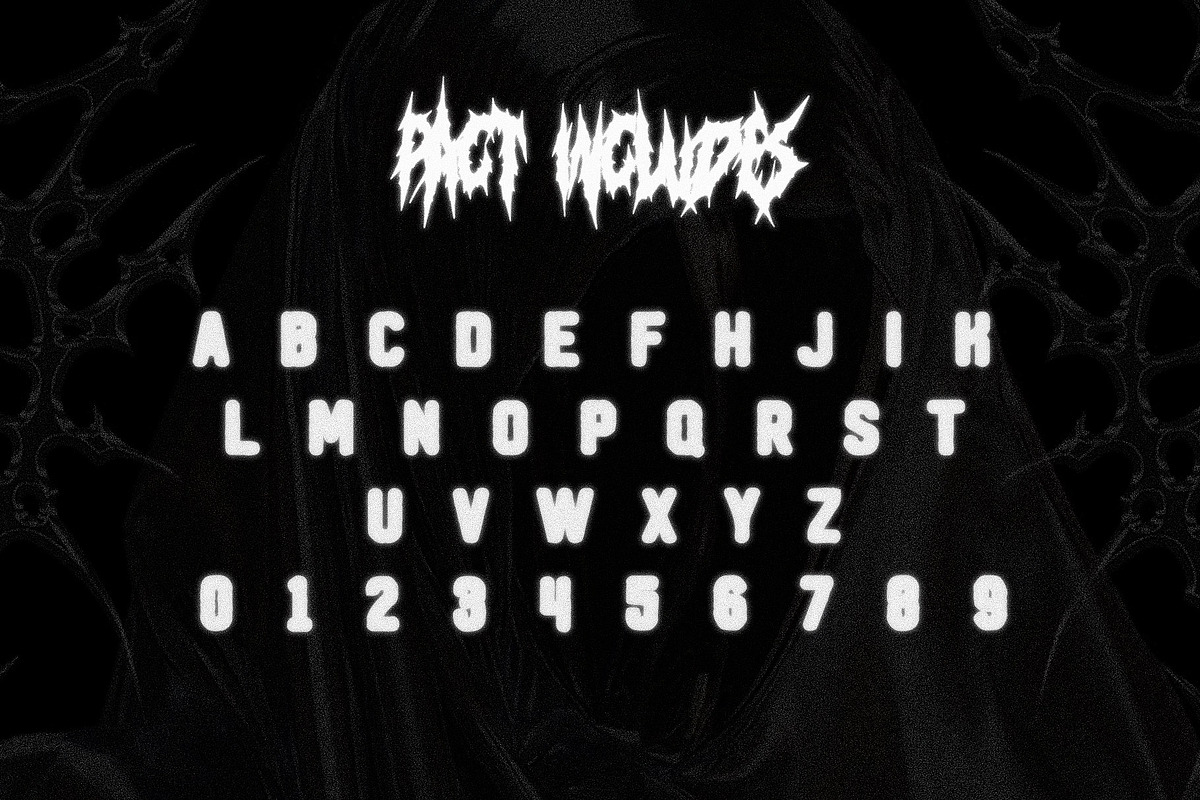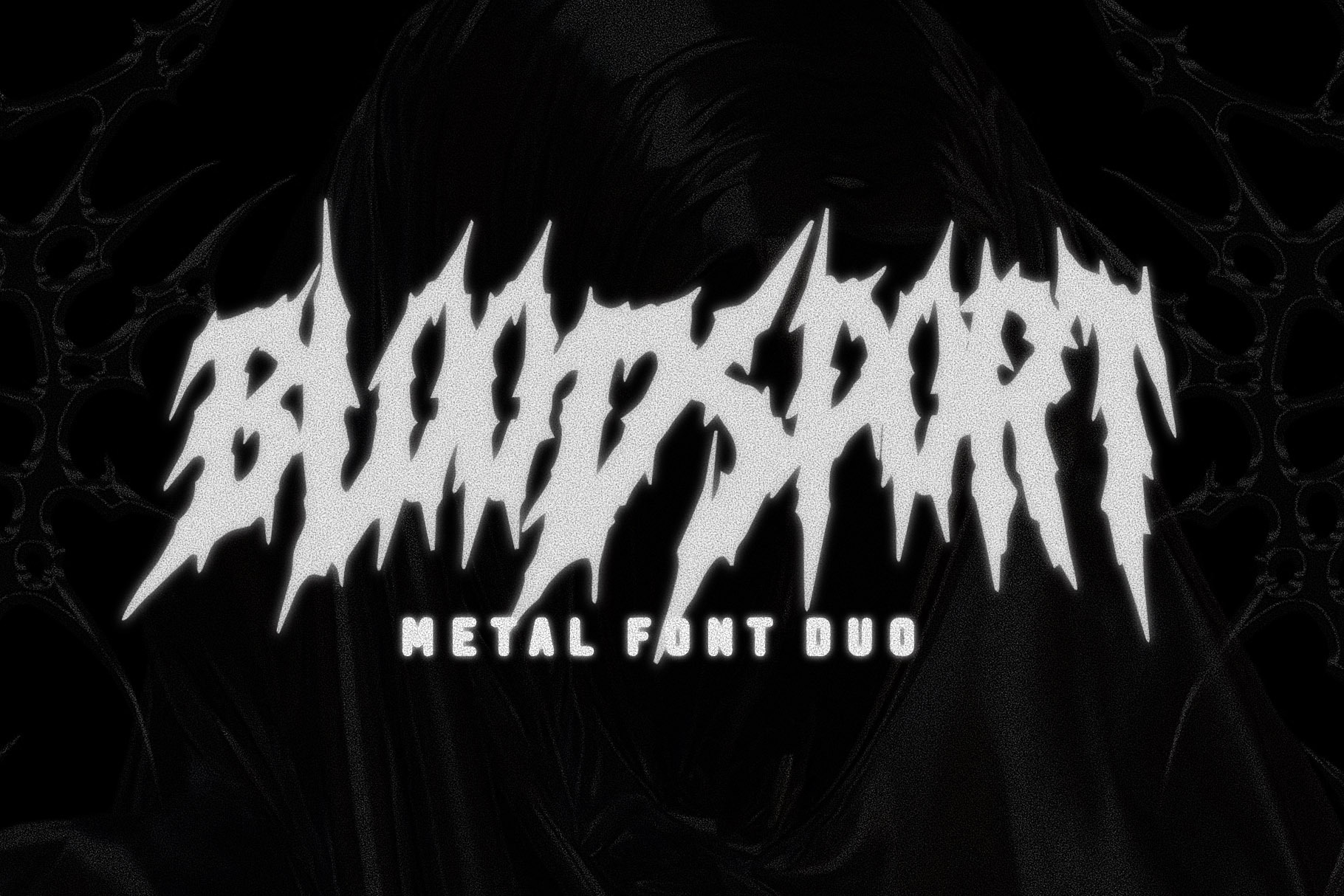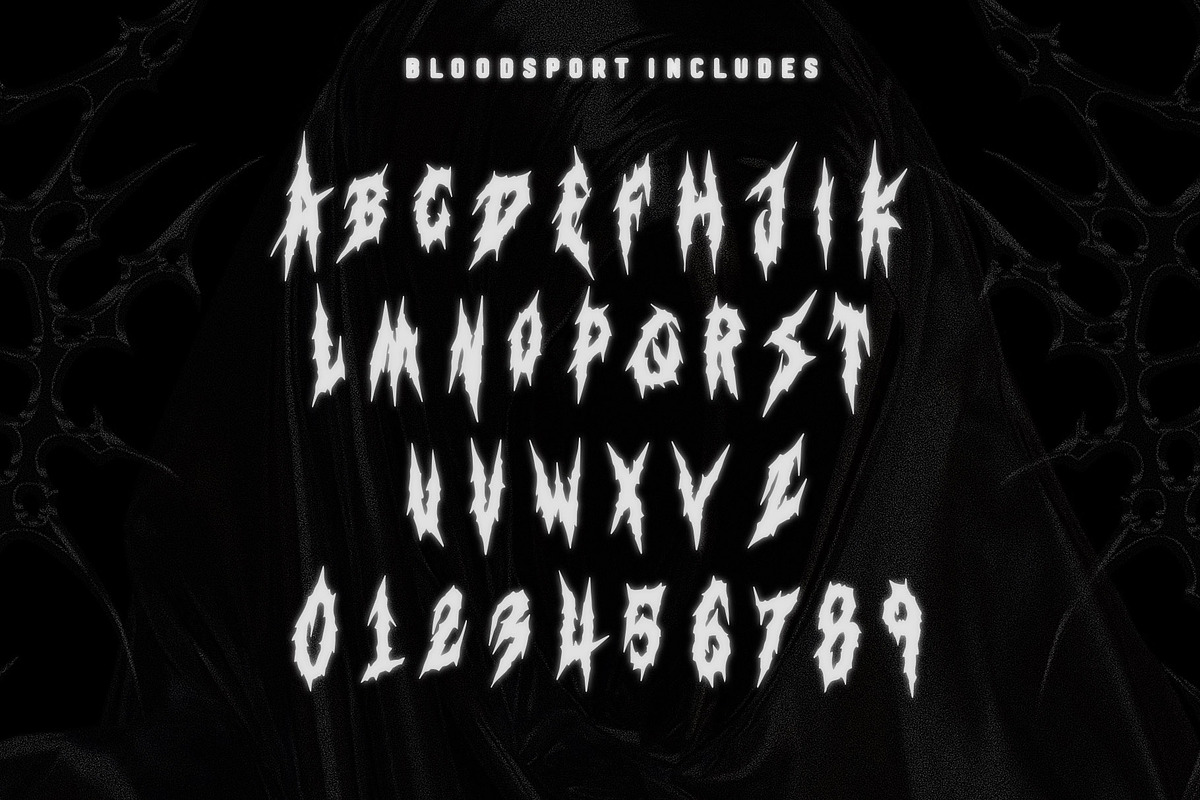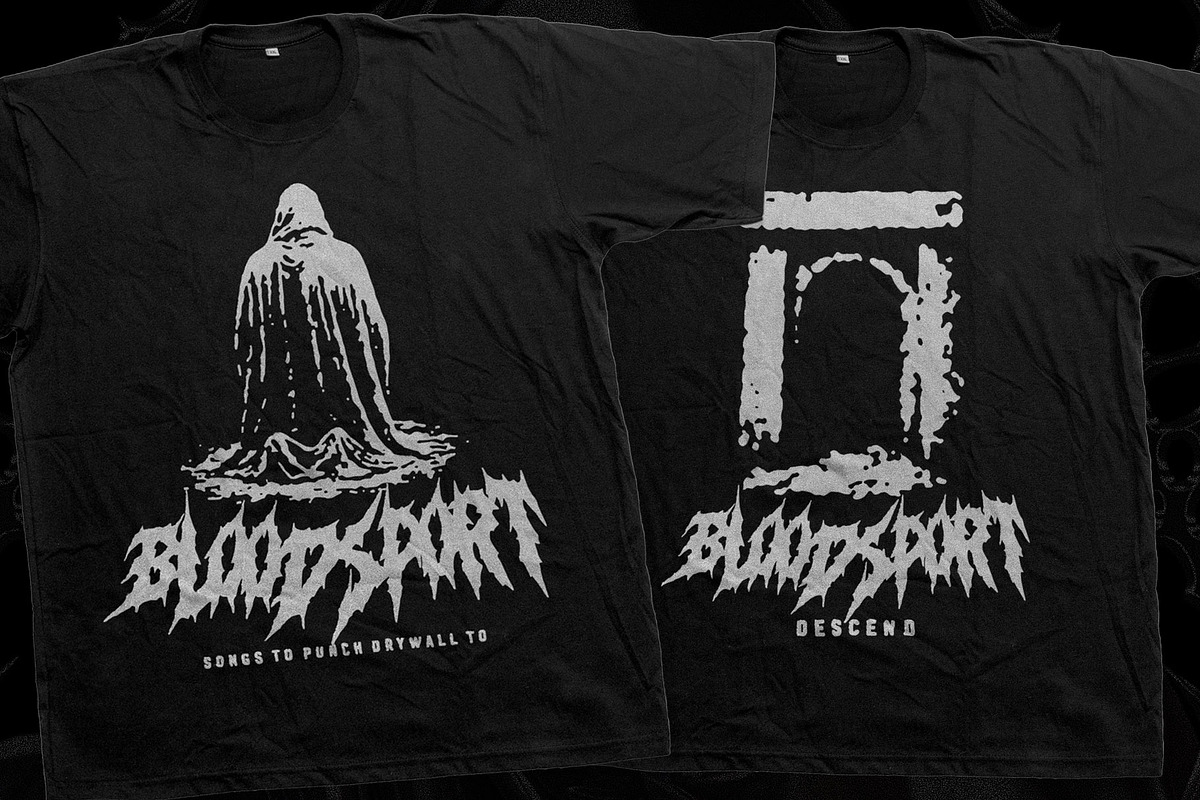
BLOODSPORT - A METAL FONT DUO
BLOODSPORT – Metal Band Logo Font Duo
BLOODSPORT is a brutal metal font duo designed for band logos, merch graphics, album artwork, and extreme typography. The set combines a chaotic signature logo font with a heavy companion display font inspired by blood pacts, ritual signatures, and underground metal aesthetics.
Perfect for designers working in heavy music, streetwear, tattoo culture, and dark graphic design.
• BLOODSPORT – Signature metal logo font • PACT – Companion display font for subtitles and supporting text
Design Concept
BLOODSPORT represents the final signature (the mark made in blood) PACT is the written contract beneath it (the oath that seals it)
Together they form a brutal typographic system built for aggressive visual design.